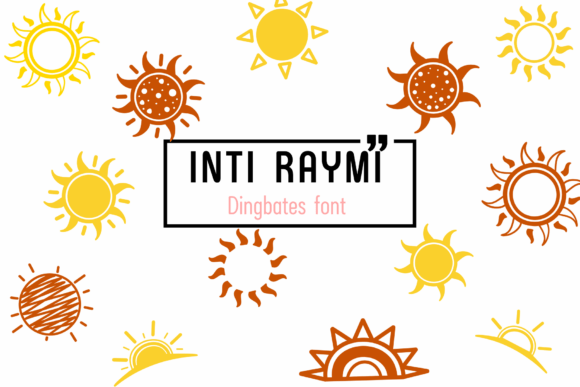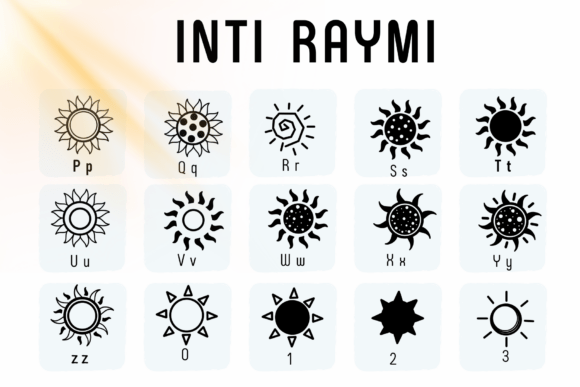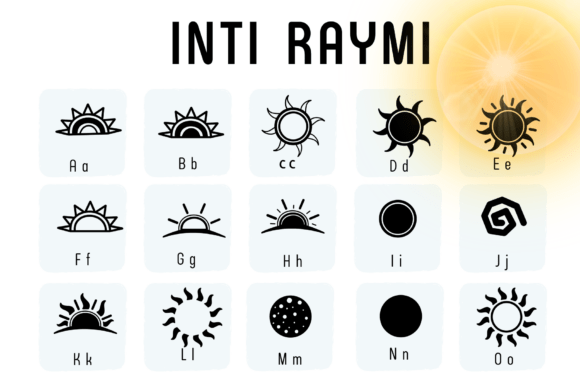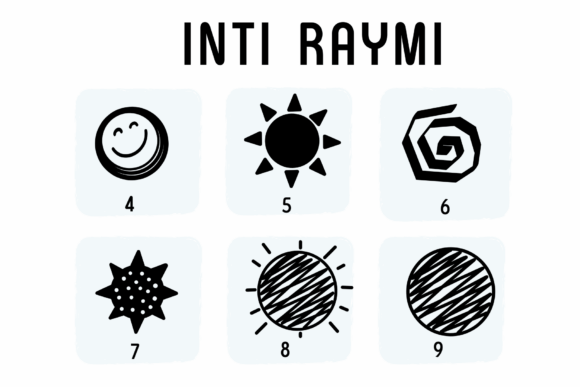
Inti Raymi Font: Sunny Dingbats for Cute DIY & Craft Projects!
About the Inti Raymi Font
Discover the charm of Inti Raymi Font. This font is a perfect blend of modern aesthetics and classic appeal. Inti Raymi is a dingbats font with a sketched style. This font can enhance your creative projects such as wedding invitations, DIY, crafts, decorations, logos, and many other creative ideas.
Inti Raymi’s sketched style is ideal for projects requiring a hand-drawn, artisanal feel. It excels in branding applications where a playful yet sophisticated touch is desired, particularly logos, short taglines, and packaging for craft-related products or boutique brands. Use it sparingly; its decorative nature makes it unsuitable for body text or longform content.
Consider pairing Inti Raymi with a clean sans-serif like Montserrat for a balanced contrast, or a more traditional serif such as Playfair Display for a touch of elegance. For a more modern feel, a geometric sans-serif such as Futura might work well. Avoid pairing it with other highly decorative fonts, as this can create visual clutter.
Inti Raymi possesses a whimsical yet refined personality, best suited for brands aiming for a unique, handcrafted image. Its sketched quality adds a layer of authenticity and warmth, making it particularly effective in projects emphasizing creativity and personal expression.